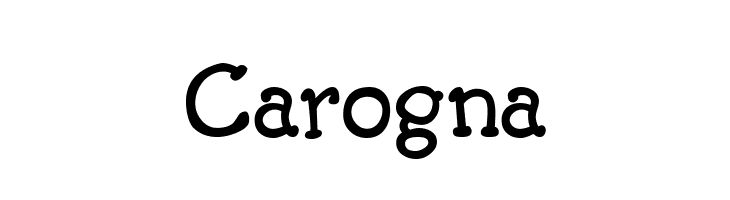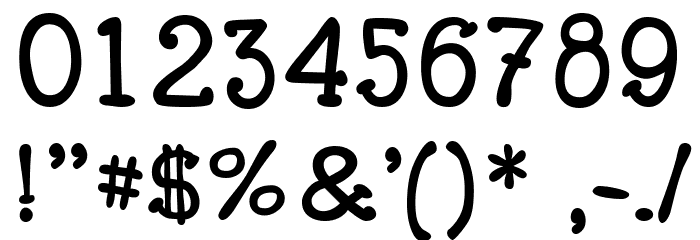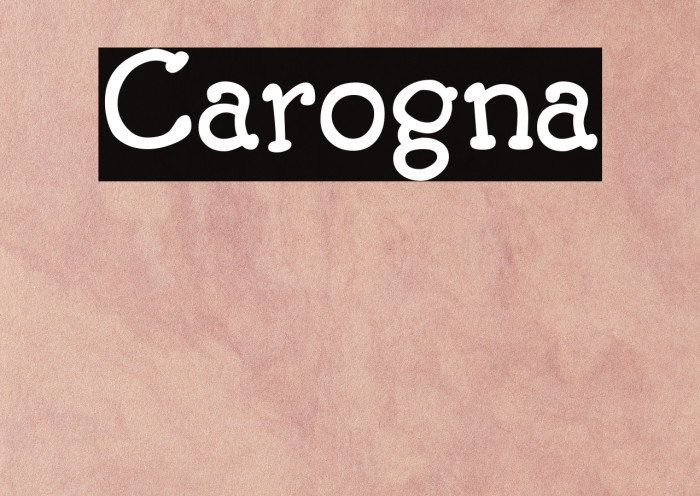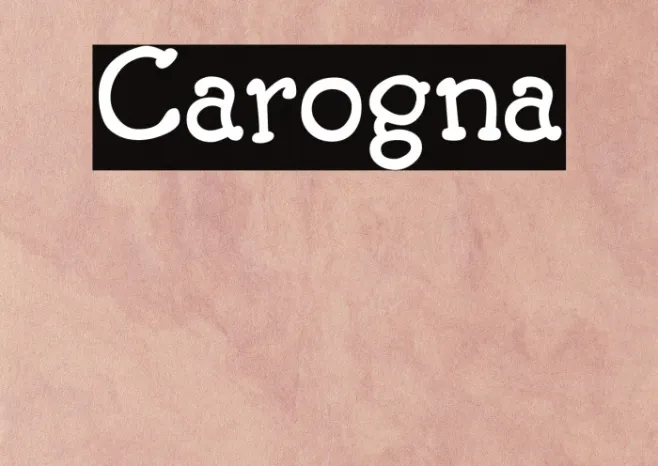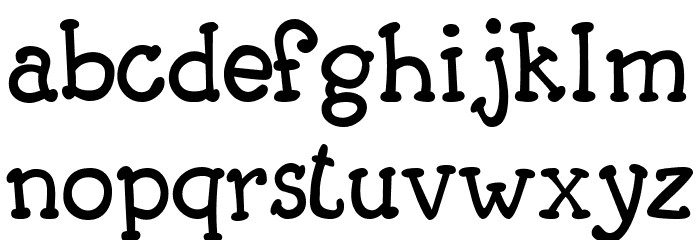
Carogna Font
This font features a playful and whimsical design with a handwritten style. The characters have a slightly irregular and bouncy appearance, giving them a casual and friendly feel. The strokes are rounded and smooth, with a consistent thickness throughout, contributing to its approachable and informal look. The uppercase and lowercase letters maintain a cohesive style, while the numerals and special characters complement the overall aesthetic. This font is ideal for projects that require a touch of personality and charm.
A playful, handwritten font with rounded, smooth strokes and a casual feel.
• Proposed Projects: Ideal for children's books, greeting cards, playful branding, and casual invitations.
• Category: Handwritten
• Overall Style: Playful